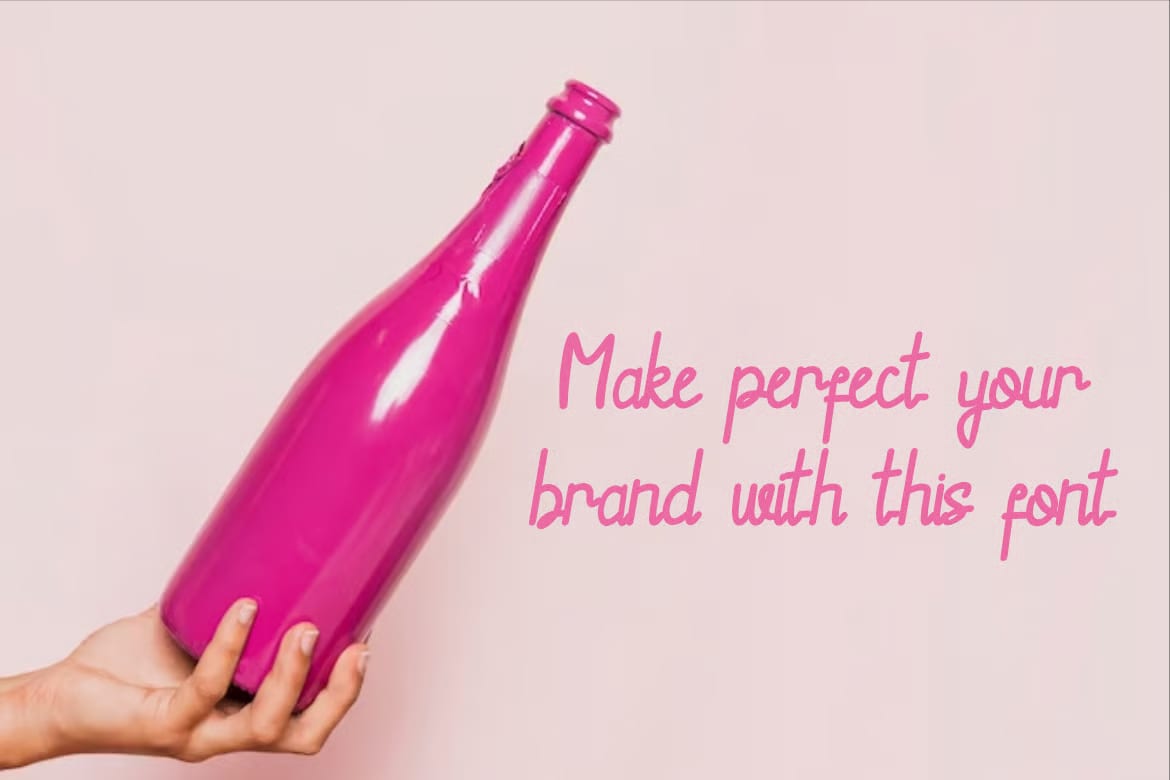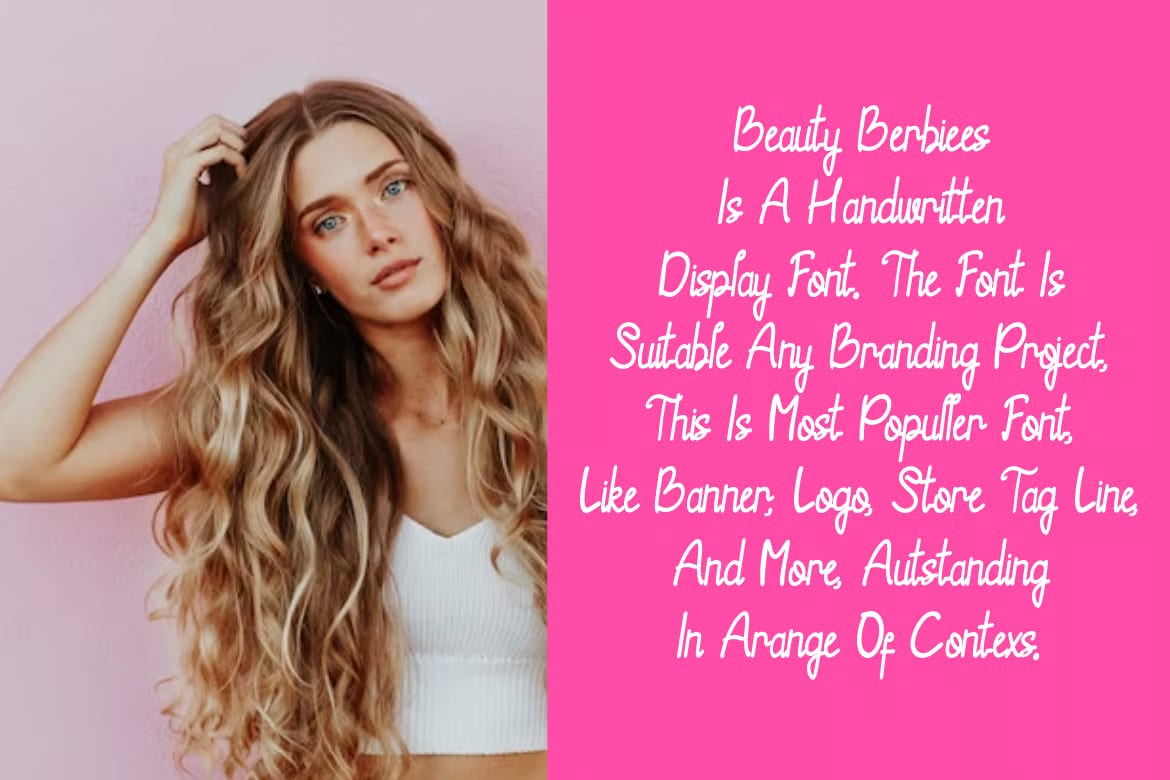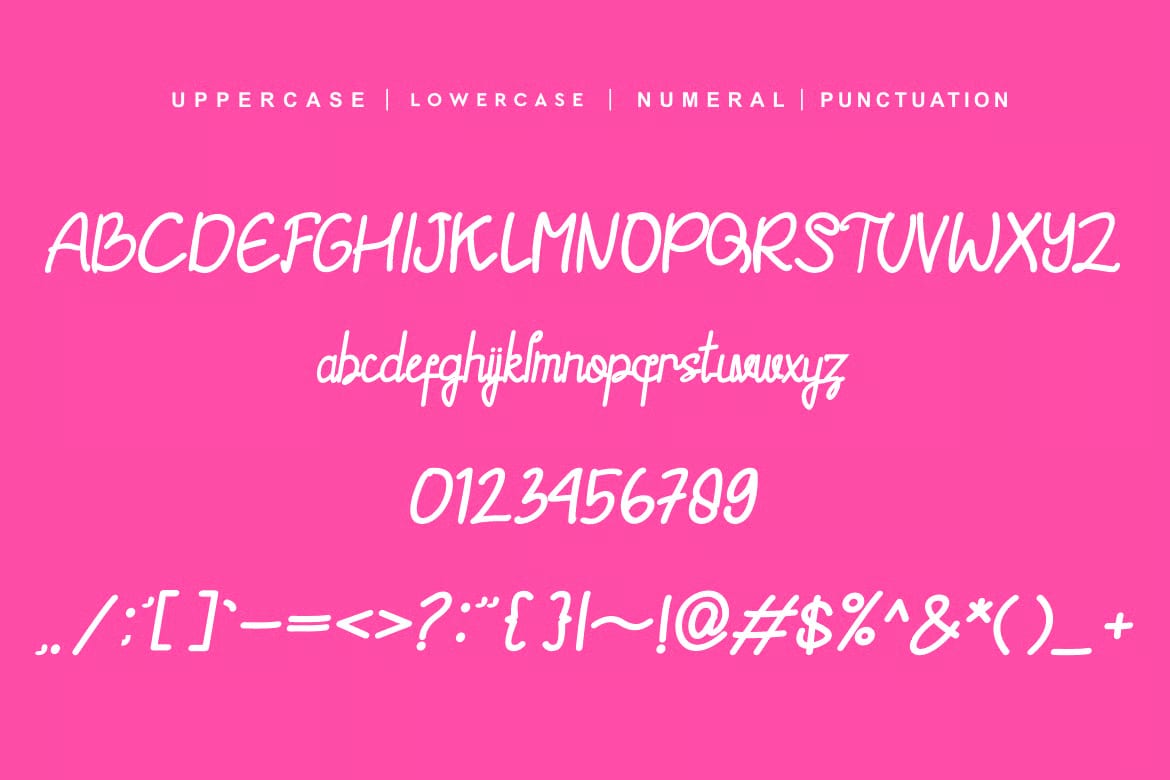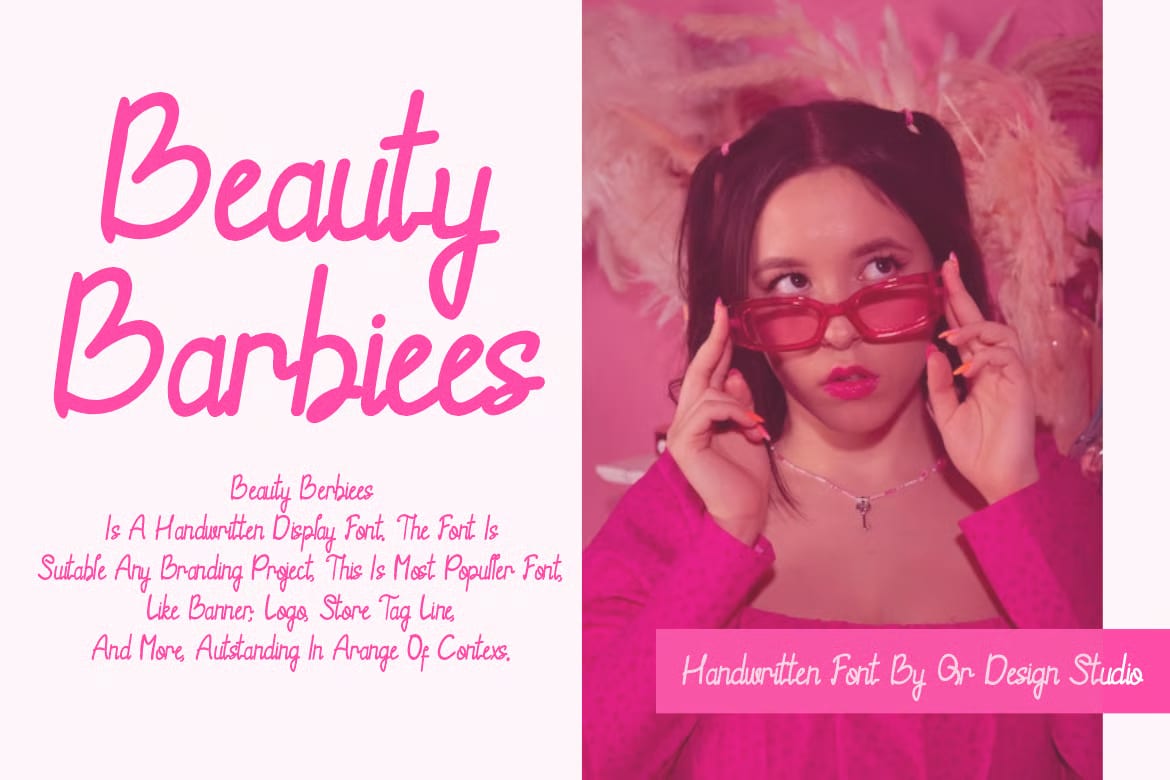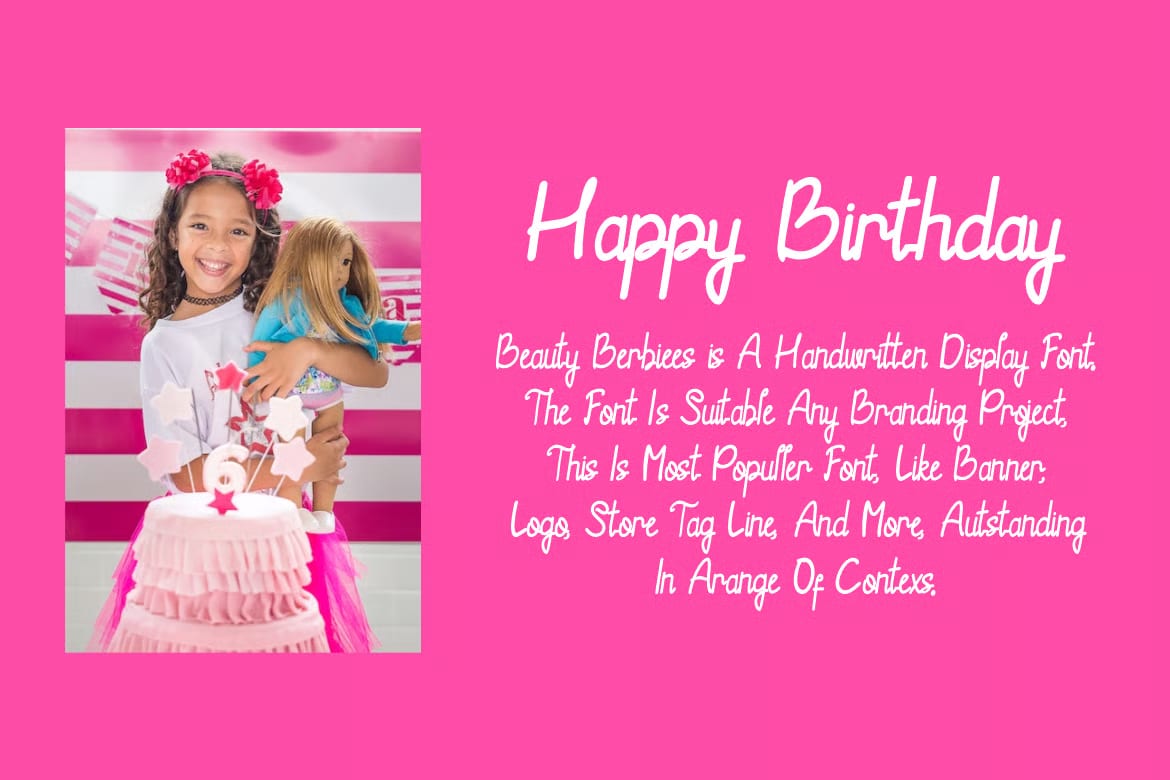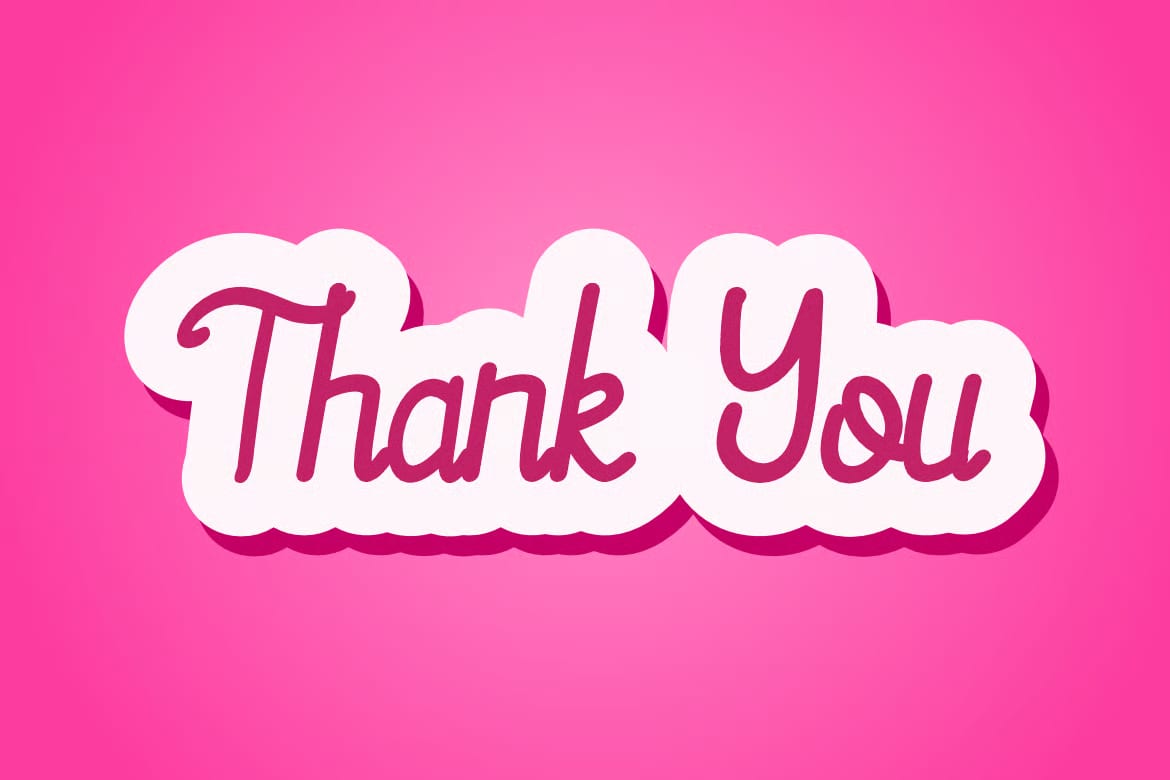
Beauty Barbiees is a bold display font with a lively, authentic feel. It has a style that stands out right away, which makes it a good choice when you want text to look noticeable and full of character.
This font works well for branding projects, logos, posters, and designs aimed at kids or anything with a cute style. Its look can fit a wide range of uses, especially when you want something playful but still strong and clear.
You can use it for titles, headings, and other display text where the font itself helps set the mood of the design. Whether you are working on something fun, colorful, or a little more decorative, it gives your text a bold personality without feeling too complicated.